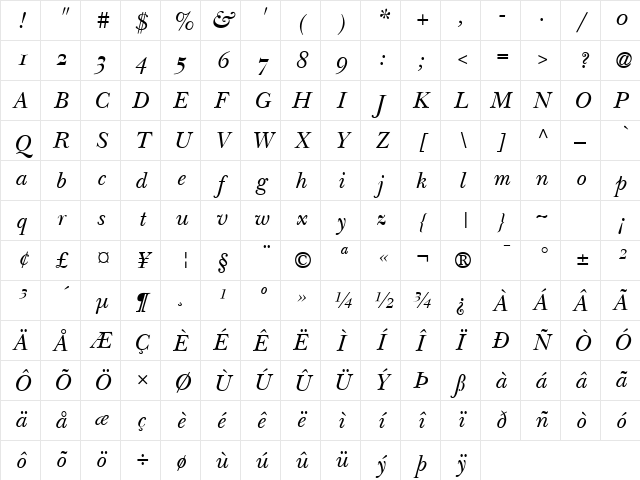
Baskerville OldStyle SSi carries the refined structure of traditional serif typography, with bracketed terminals and considered proportions that communicate credibility and craft.
Pro Tip: Use Baskerville OldStyle SSi for editorial body copy and considered headline work. Pair with a neutral sans for UI elements or captions to create a classic hierarchy.